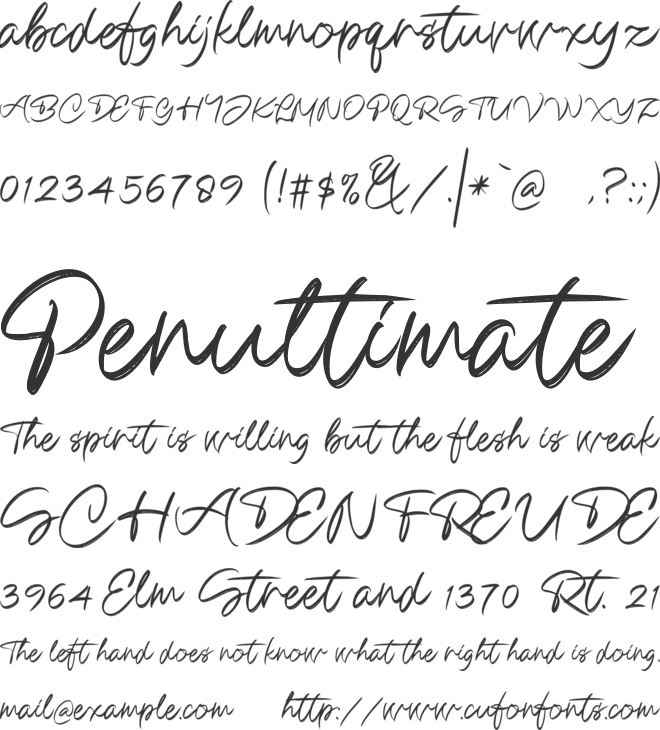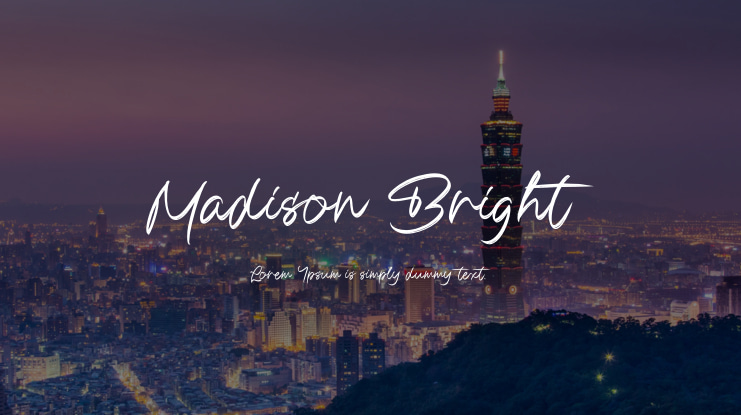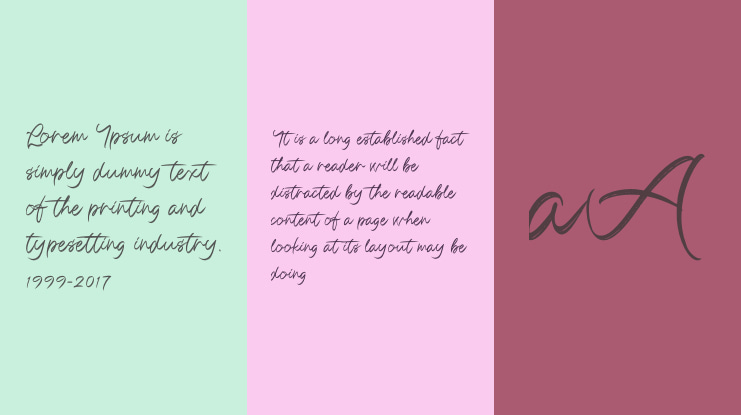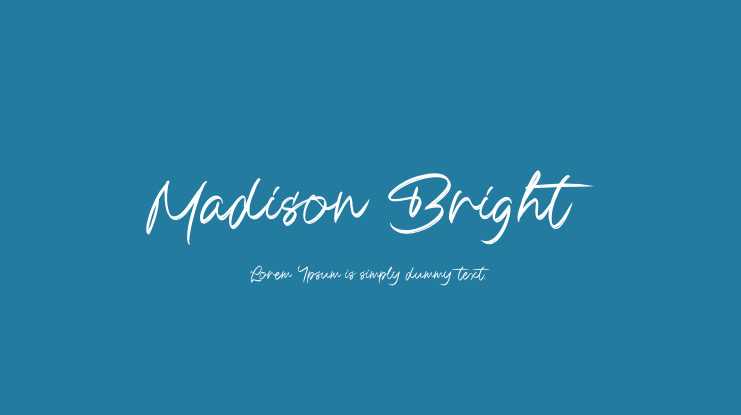
Madison Bright is a charming handwritten font with a touch of vintage brush aesthetics. Its fluid strokes and natural flow evoke a sense of nostalgia, making it perfect for creating designs with a personal, handcrafted feel. Whether you're working on branding, packaging, posters, or social media graphics, Madison Bright adds warmth and authenticity to your projects.